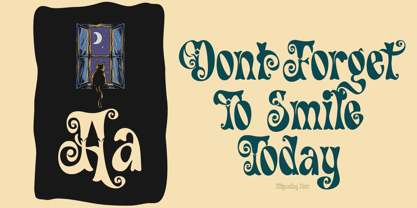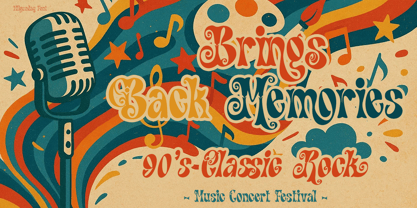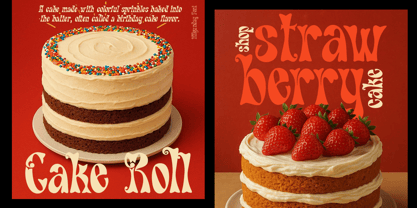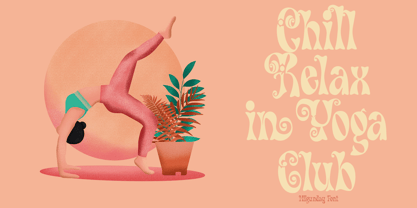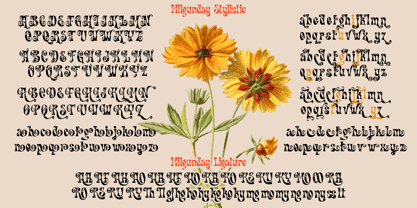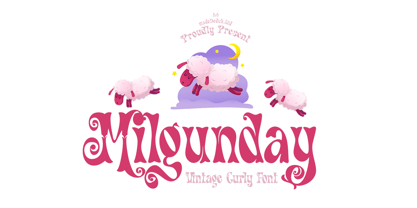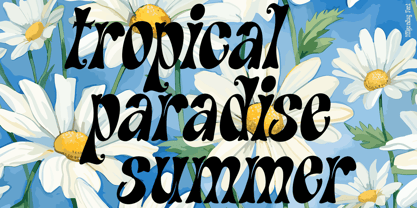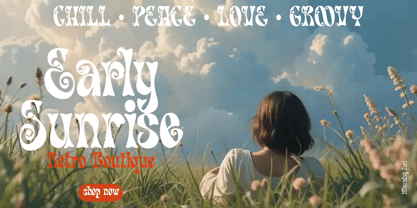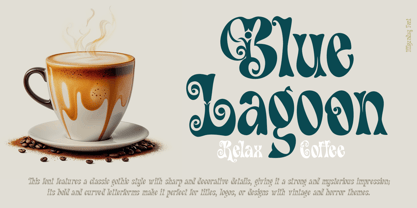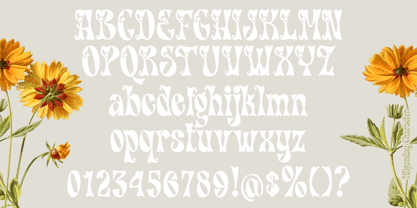
Milgunday
by madeDeduk
The Milgunday Font Family was designed by madededuk and published by madeDeduk. Milgunday contains 2 styles and family package options. More about this family
Introducing Milgunday, a vintage typeface with a unique style defined by bold, curved, and textured letterforms that impart an artistic and experimental feel. This font offers numerous alternates and ligatures, enhancing its versatility for creative projects that seek to stand out as unique and distinctive. Perfect for various advertising purposes, it is ideal for both digital content and printed materials, ensuring your designs capture attention and convey a memorable message.